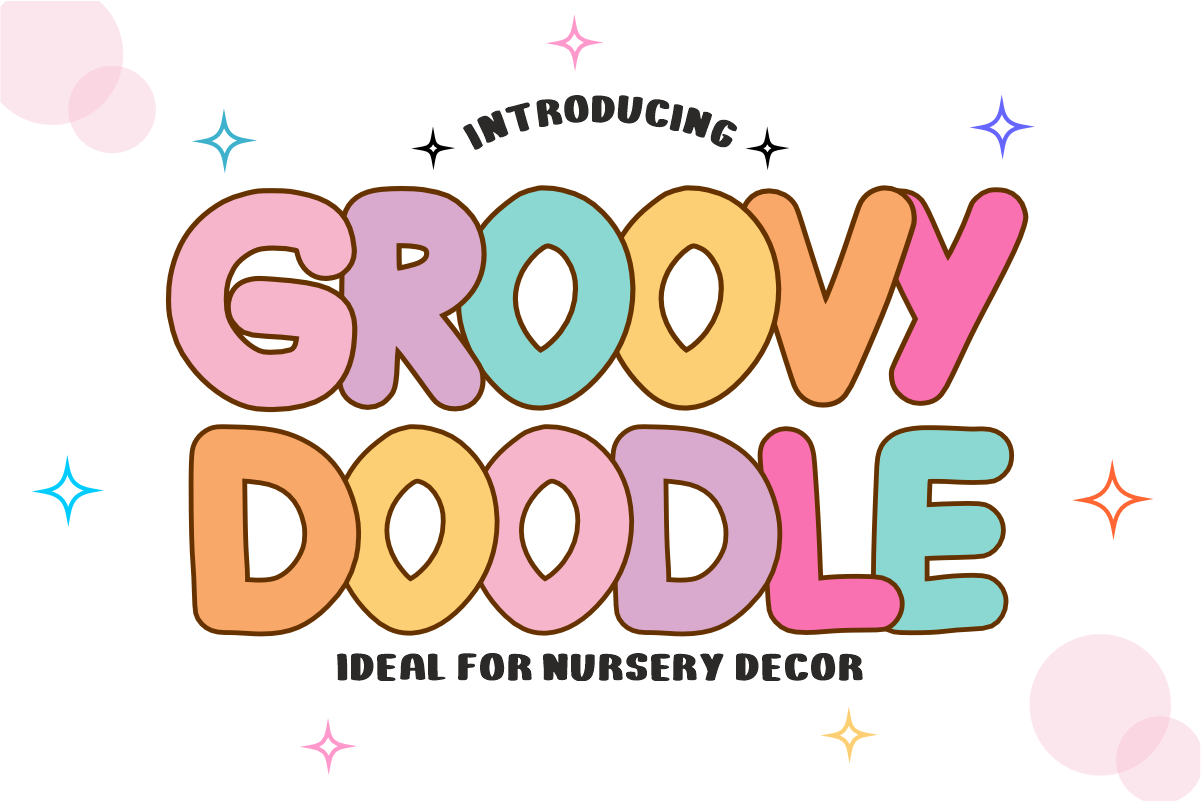
Groovy Doodle - Retro Nursery Font
Groovy Doodle is a fun, bubbly, and playful display font featuring chunky retro letterforms with smooth rounded outlines and a handwritten doodle aesthetic. Perfect for nursery wall decor, sweet baby apparel, aesthetic quote graphics, and cheerful DIY crafts, this font blends 70s vintage vibes with cute modern style. Every character is cleanly vectorized to guarantee high-resolution prints and smooth, effortless cutting on Cricut and Silhouette machines.